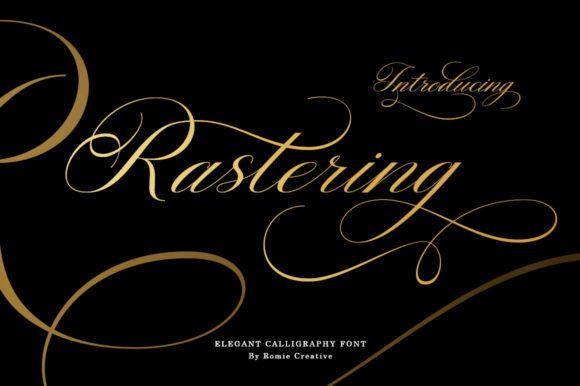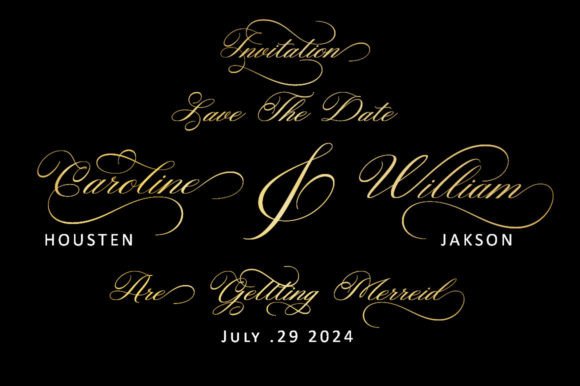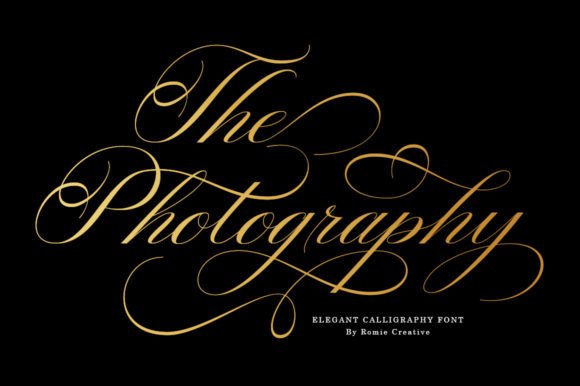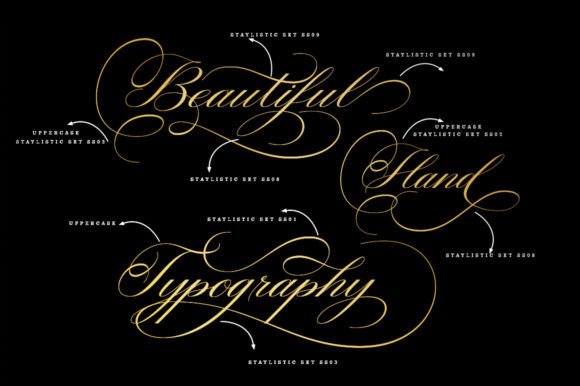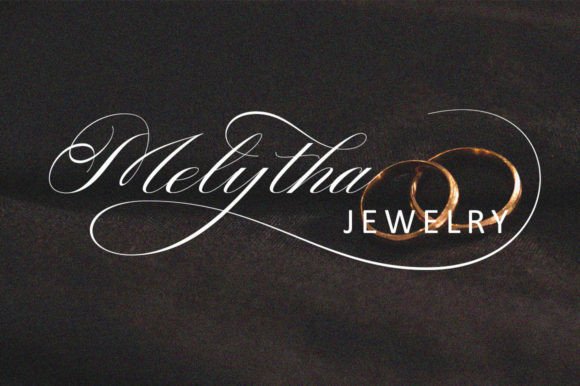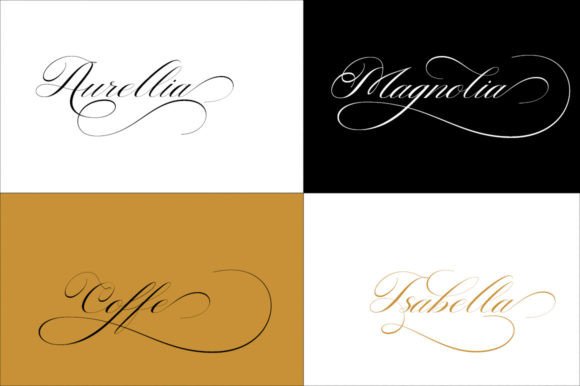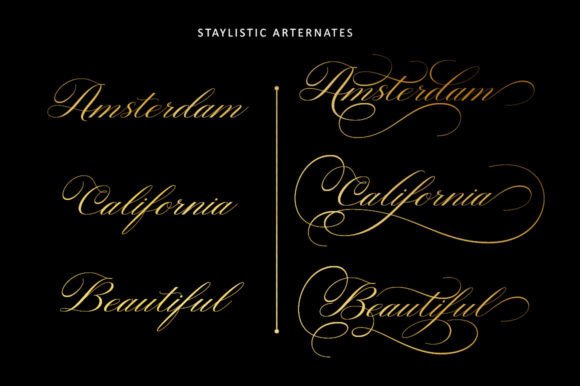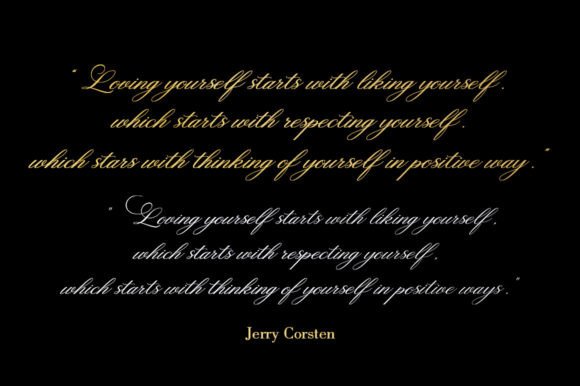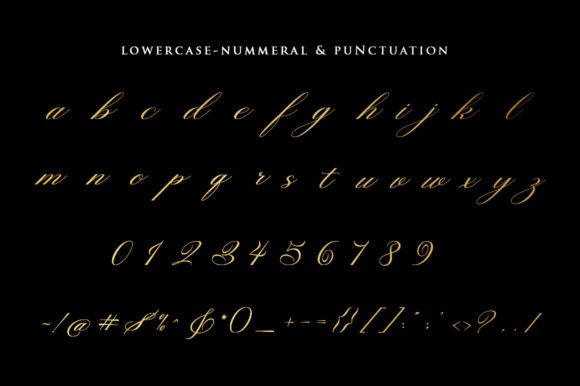
Rastering Font
Introducing our new product called Rastering | Elegant Calligraphy Font Manu script. Rastering fonts include uppercase and lowercase letters, numbers, various types of punctuation and ending. All lowercase including last swash and alternate fonts.
Uppercase, Lowercase, Number Punctuation Multilingual Swash Opentype